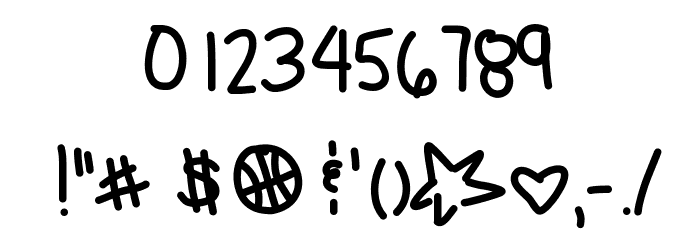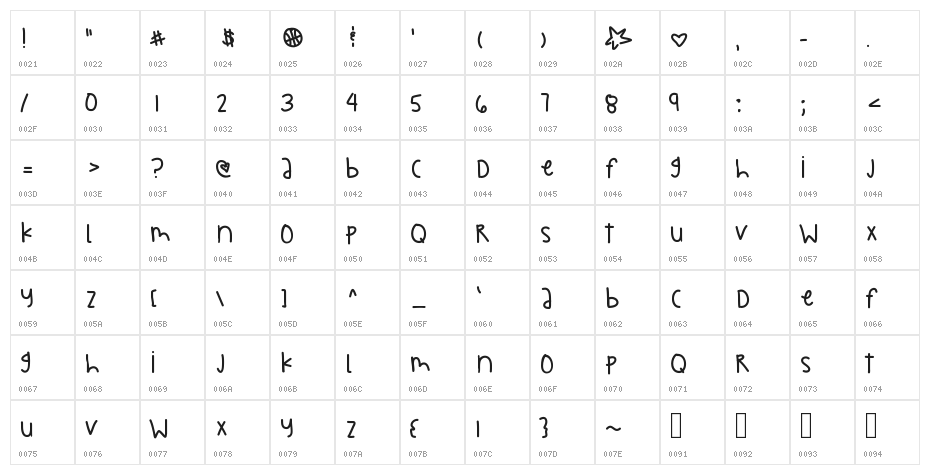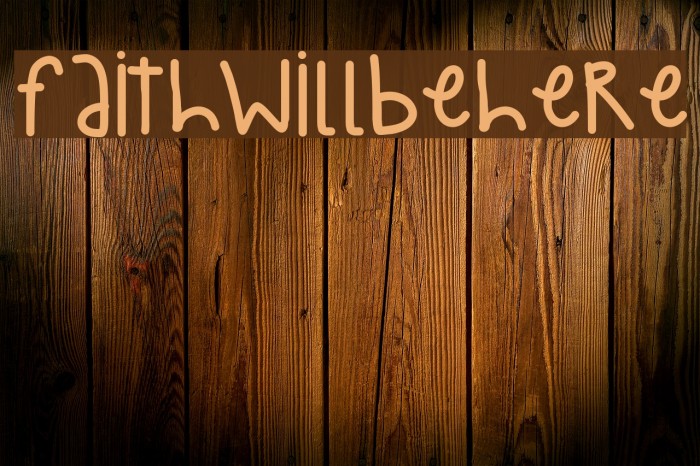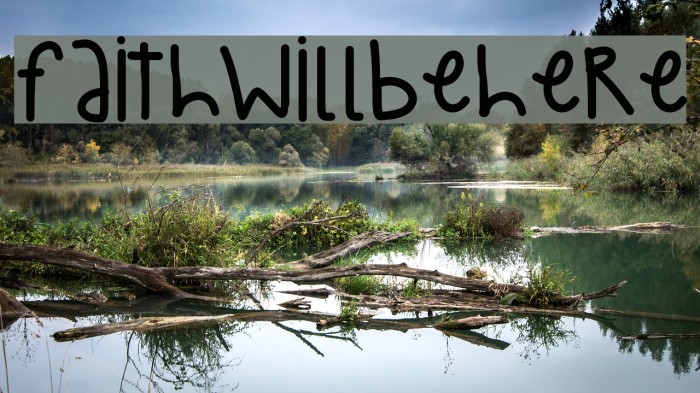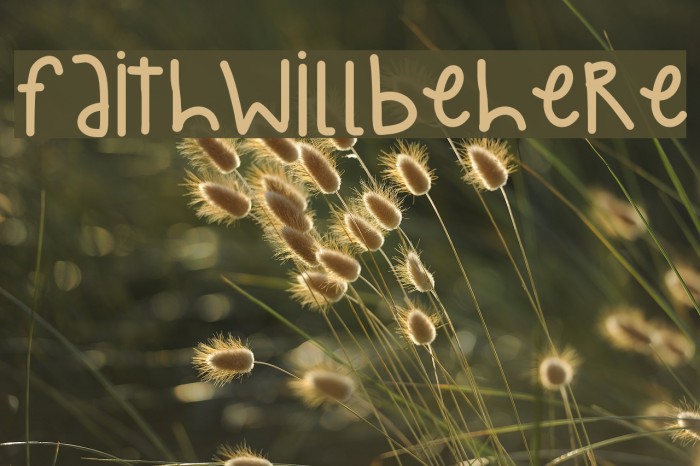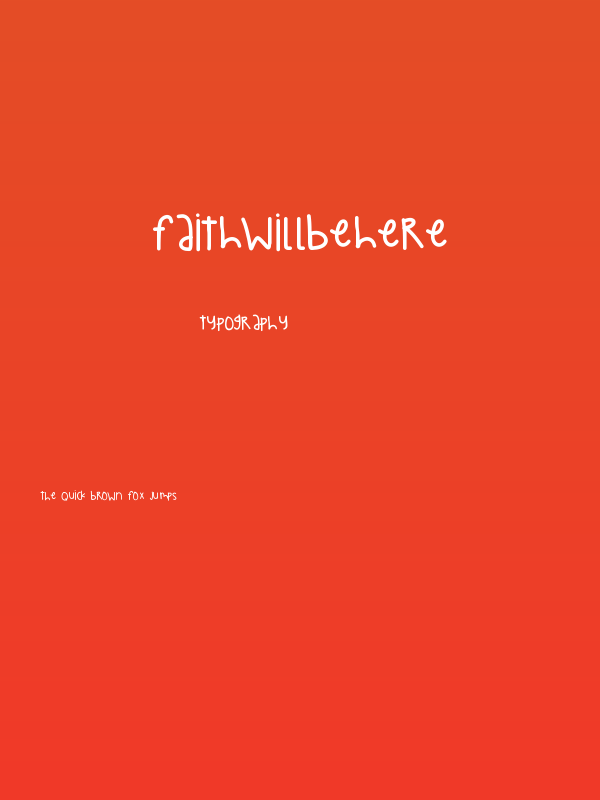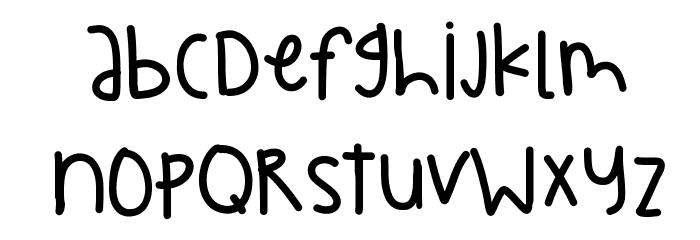
FaithWillBeHere Font
FaithWillBeHere Description
This playful and whimsical font features a handwritten style with rounded edges and a casual, friendly appearance. The letters are slightly irregular, giving it a personal touch that mimics natural handwriting. It includes both uppercase and lowercase letters, numbers, and a variety of special characters. The strokes are consistent in thickness, providing a uniform look across all characters. This font is ideal for projects that require a fun and approachable aesthetic, such as children's books, greeting cards, or informal invitations.
| Proposed Projects | Children's books, greeting cards, informal invitations, playful branding. |